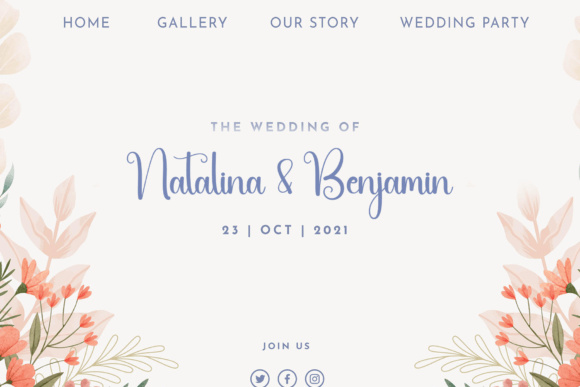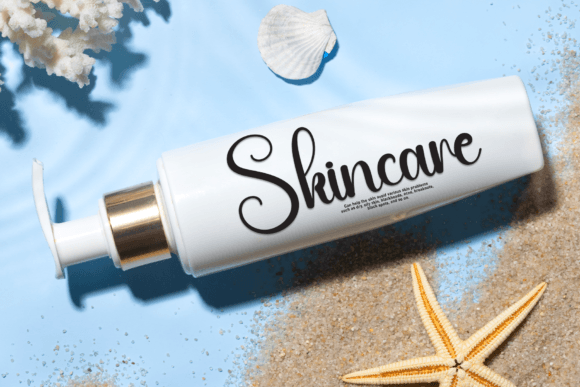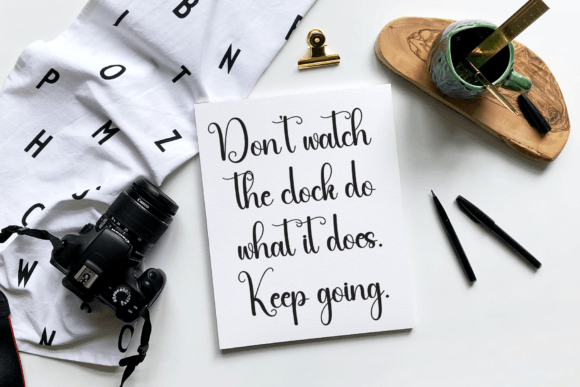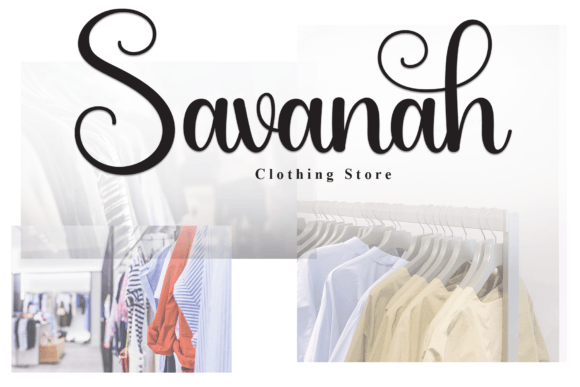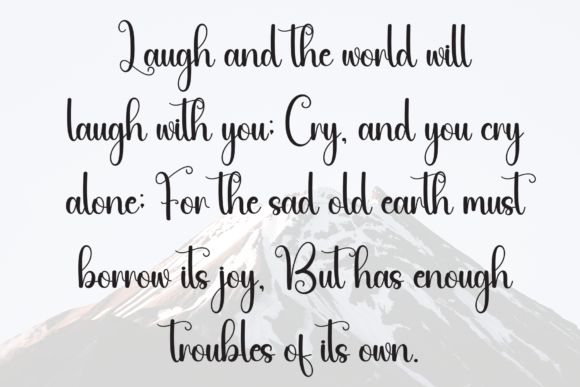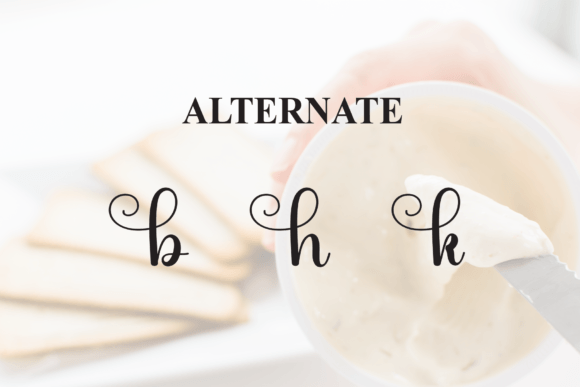
Introducing the Butter Tumbler Font: A Sweet and Friendly Handwritten Delight
Are you a designer or crafter looking for a font that adds a touch of whimsy and fun to your projects? Look no further than the Butter Tumbler Font! This sweet and friendly handwritten font is perfect for creating eye-catching wedding invitations, cards, and other designs that require a playful twist. In this article, we’ll dive into the world of Butter Tumbler Font, exploring its features, uses, and benefits for designers and crafters alike.
What is Butter Tumbler Font?
Butter Tumbler Font is a beautiful, handwritten font that exudes warmth and friendliness. Its cute and fun design makes it an ideal choice for projects that require a personal touch. Whether you’re creating wedding invitations, birthday cards, or social media graphics, Butter Tumbler Font is sure to add a dash of sweetness to your designs.
Key Features of Butter Tumbler Font
• Handwritten Design: Butter Tumbler Font boasts a genuine handwritten look, complete with subtle imperfections and variations in letter size and spacing.
• Cute and Fun: This font is perfect for projects that require a playful touch, from whimsical wedding invitations to fun and colorful social media graphics.
• Versatile: Butter Tumbler Font can be used for a wide range of projects, including cards, invitations, posters, and more.
• Easy to Read: Despite its playful design, Butter Tumbler Font remains easy to read, making it perfect for body text and headings.
Uses for Butter Tumbler Font
Butter Tumbler Font is an incredibly versatile font that can be used for a wide range of projects. Here are some ideas to get you started:
• Wedding Invitations: Add a touch of romance and whimsy to your wedding invitations with Butter Tumbler Font.
• Birthday Cards: Create personalized birthday cards that are sure to delight with this fun and playful font.
• Social Media Graphics: Use Butter Tumbler Font to create eye-catching social media graphics that showcase your brand’s personality.
• Posters and Flyers: Add a dash of fun and color to your posters and flyers with this vibrant font.
Butter Tumbler Font offers a range of benefits for designers and crafters, including:
• Unique and Creative: This font offers a fresh and unique perspective on traditional handwritten fonts.
• Time-Saving: With Butter Tumbler Font, you can create stunning designs in no time, thanks to its easy-to-read design and versatile uses.
• Customizable: Experiment with different colors, textures, and styles to make Butter Tumbler Font your own.
Tips for Using Butter Tumbler Font
To get the most out of Butter Tumbler Font, here are some tips to keep in mind:
• Pair with Other Fonts: Combine Butter Tumbler Font with other fonts to create visually interesting and dynamic designs.
• Experiment with Colors: Try out different colors and textures to add depth and personality to your designs.
• Use for Headings and Body Text: Butter Tumbler Font works well for both headings and body text, making it a versatile addition to your design toolkit.
In conclusion, Butter Tumbler Font is a sweet and friendly handwritten font that’s perfect for designers and crafters looking to add a touch of whimsy and fun to their projects. With its cute and playful design, versatile uses, and easy-to-read format, this font is sure to become a staple in your design toolkit. So why wait? Download Butter Tumbler Font today and start creating stunning designs that showcase your creativity and personality!